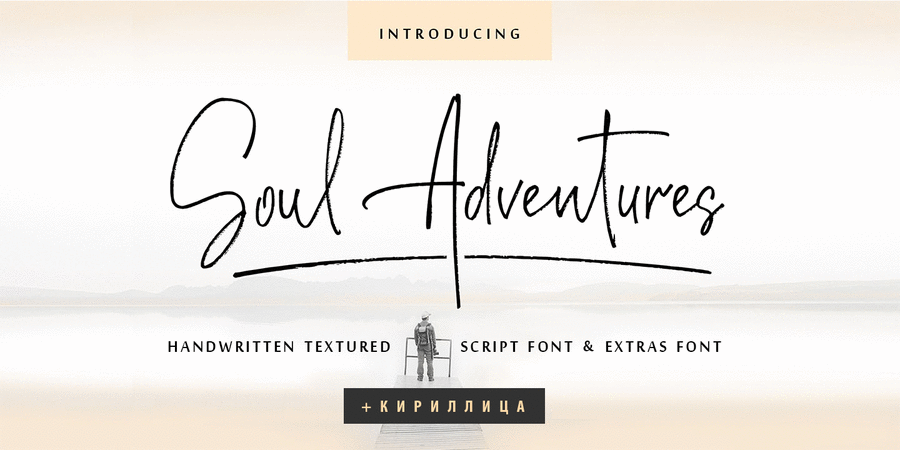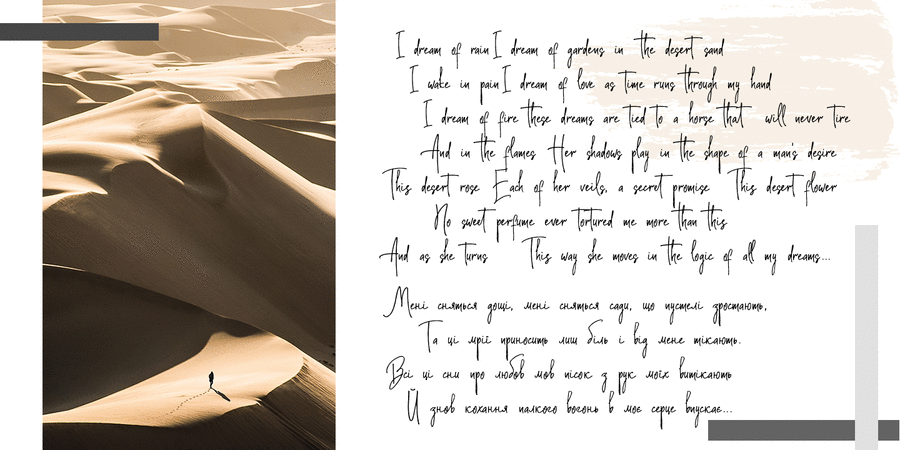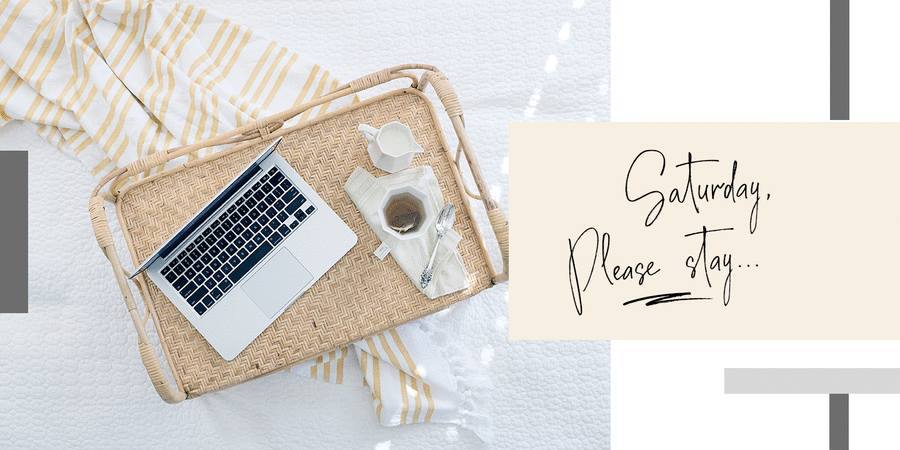
This font pair adds hand look style to your design projects be it logos, signatures, labels, packaging design, blog headlines. Also, it will look great in mugs, cards, gorgeous typographic designs, wedding stationery and much more.
Soul Adventures script includes a full set of uppercase 2 sets of lowercase letters, numerals, a large range of punctuation and 70 ligatures, giving realistic hand-lettered style. The Cyrillic part of the font contains the uppercase letters and lowercase letters and 20 ligatures.
Soul Adventures Symbols is a font with over 36 unique, hand-drawn elements and swashes can help to make your design more original. A different symbol is assigned to ever uppercase or lowercase standard character plus numbers 0-9 so you do not need graphics software just simply type the letter you need.
Multilingual support for 32 languages, including Cyrillic glyphs for Russian, Belorussian, Bulgarian, Ukrainian and Kazakh languages. The typeface was designed by Iryna Dvilyuk in 2021.
Associations for font family Soul AdventuresTypeface personality and character:
informal, glad, fresh, thin, air, fast, dynamic, inspired, lyrical, sensual, emotional, musical, poetic, artistic, passionate, creative, dashing, cheeky, daring, original, freewheeling, cutting, picturesque, alive, temperamental, active, transparent, quick, sweeping, spring, slovenly, distinctive, vernacular, festive, wedding, romantic, rhythmic, easy, female, playful, major, frivolous, windy, intimate, sentimental, dancer, interesting, beautiful, elegant, feminine, epistolary, fragile, craft brewed, sexy, pretty, nice, Artisanal, vegetable, domestic
celebration, lyrics, souvenir, poetry, literature, art, flowers, dance, diet, music, cosmetics, cafe, love, poems, wine, ballet, Spring, romance, dress, beauty, Instagram, advertising, entertainment, exhibition, clothes, barbershop, handmade, garden, diary, theater, gifts, recreation, wedding, ASMR, graphics, illustration, morning, dawn, landscape, fashion Typeface exhibits stylistic traits: